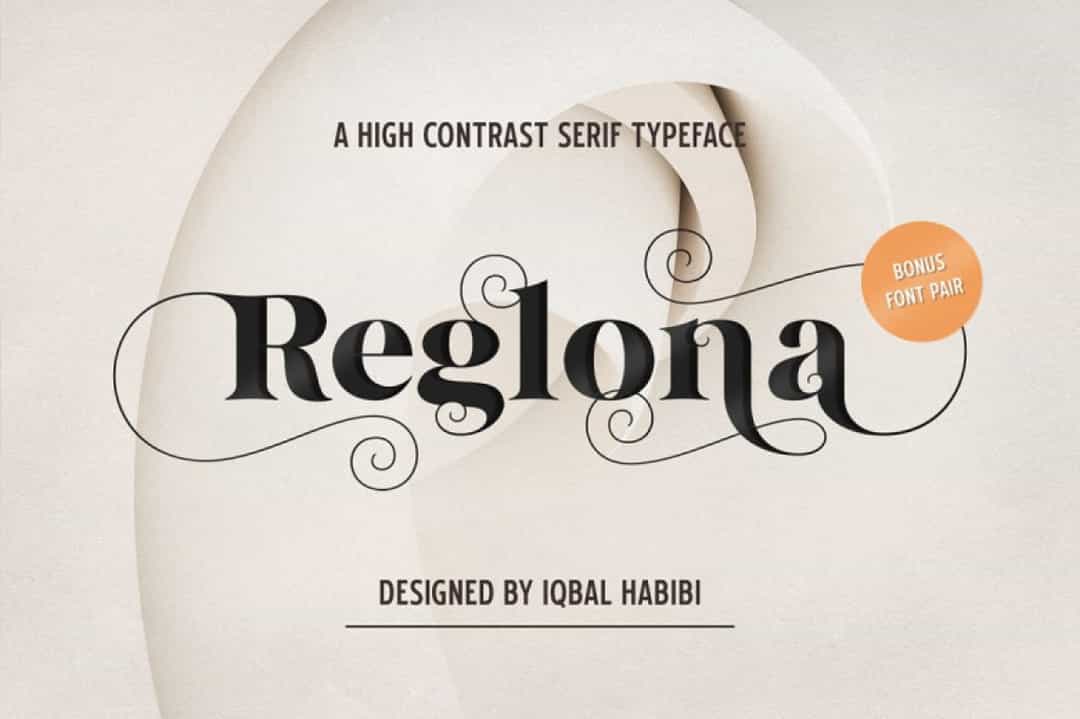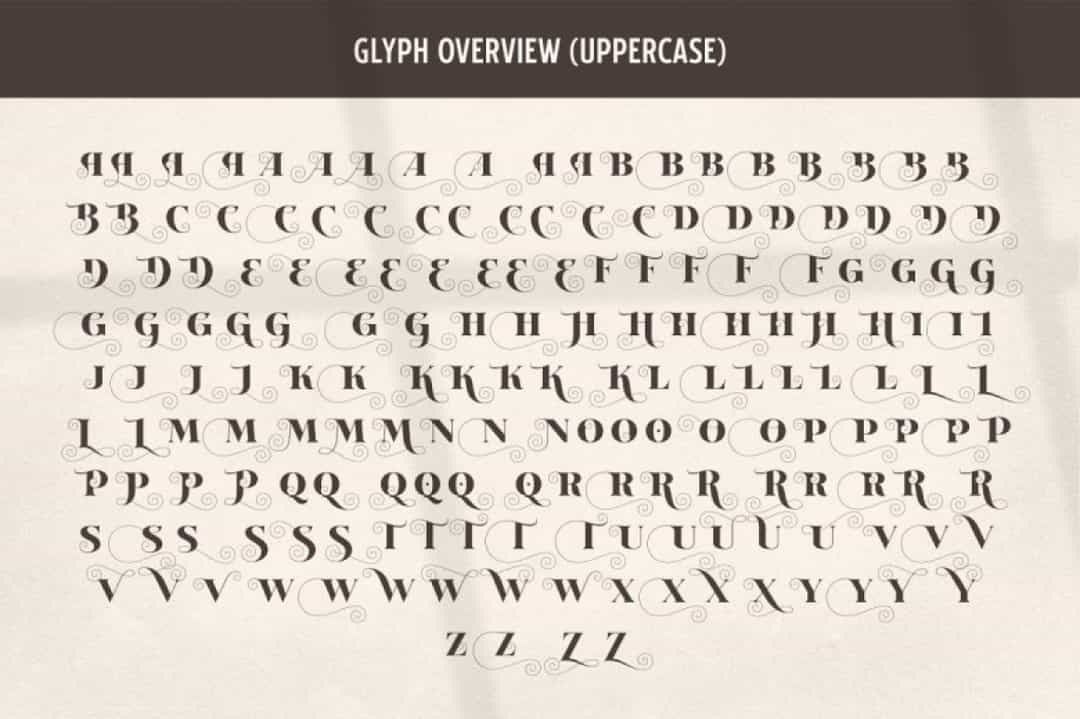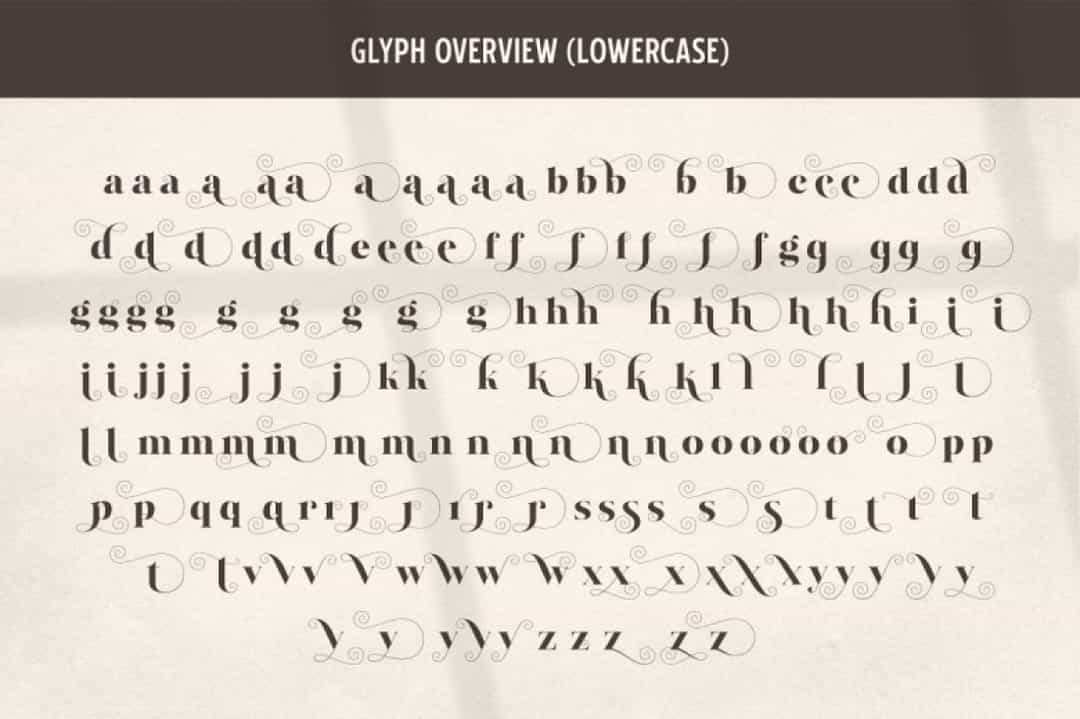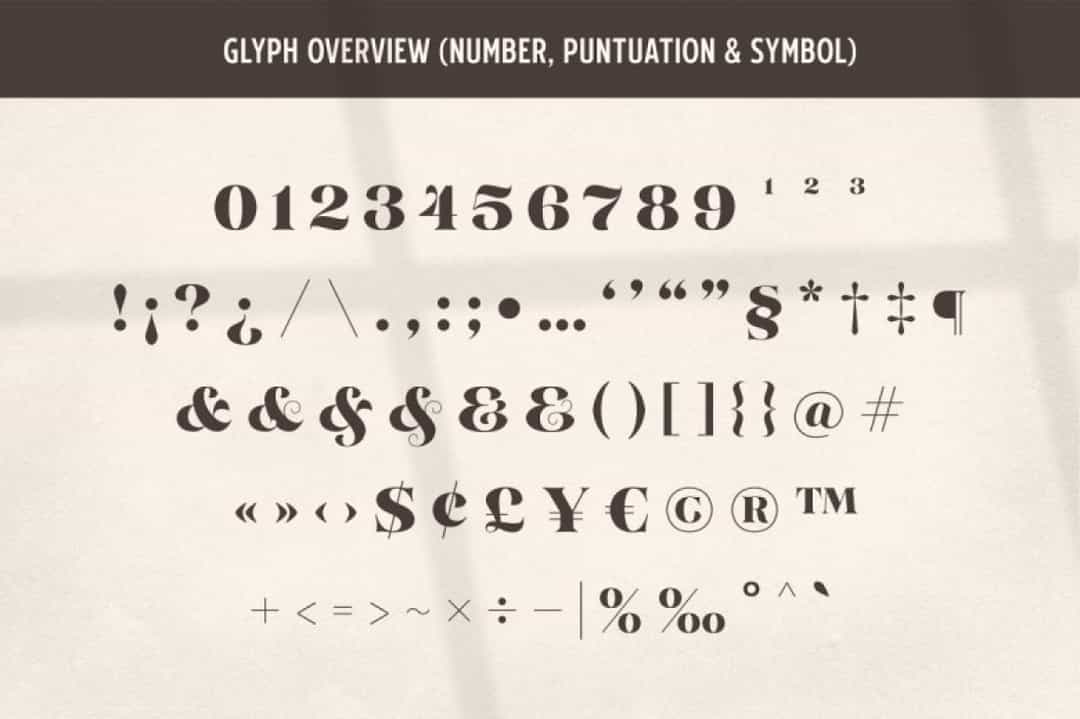
Reglona is a high-contrast serif typeface featuring stunning and well-balanced highlights, designed to produce an eye-catching appearance that is both robust, elegant, and extravagant. Reglona comes equipped with over 400 alternative characters for you to experiment with!